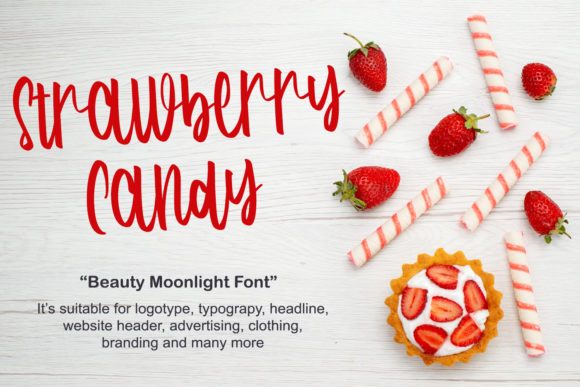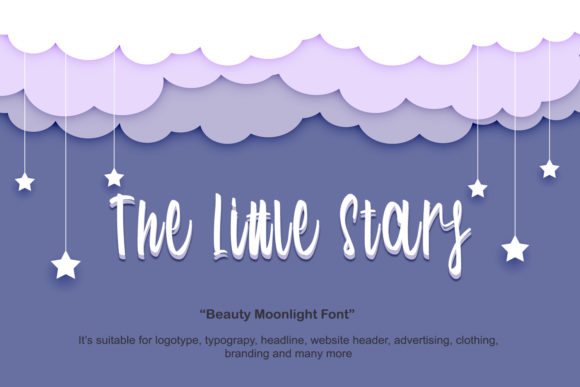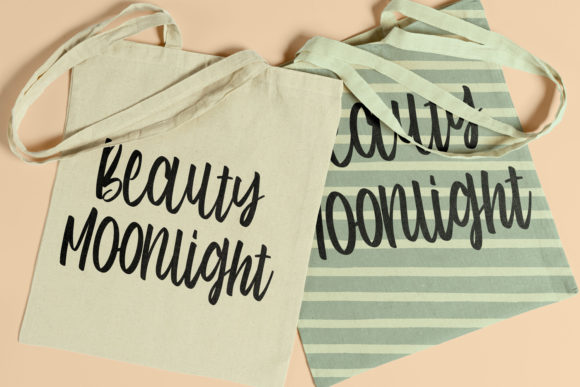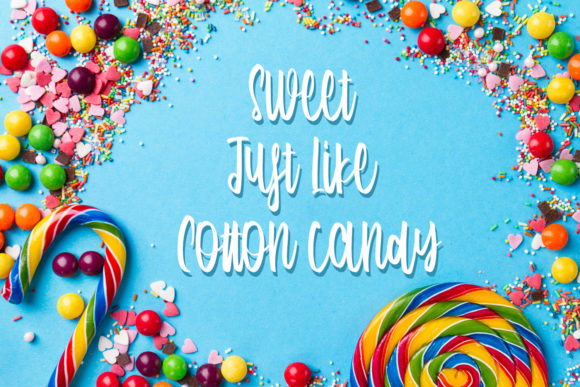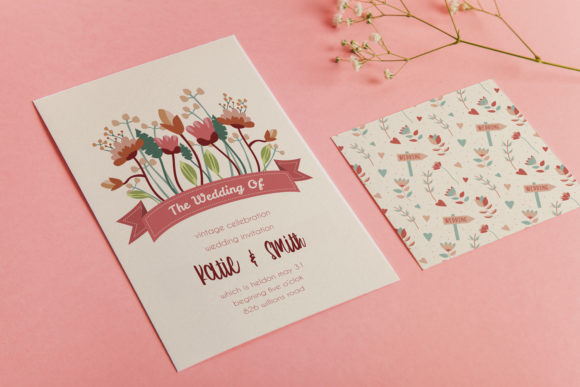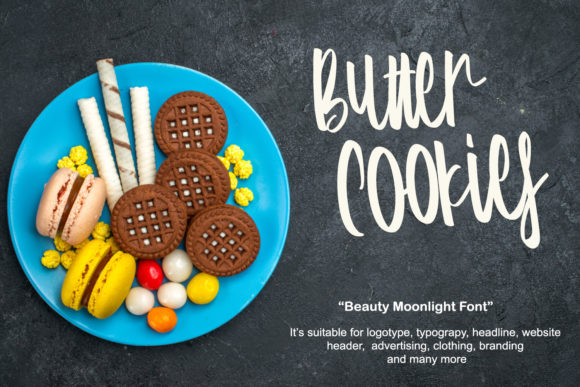
Introduction to Beauty Moonlight Font
Beauty Moonlight is an exquisite handwritten font, masterfully designed to become a true favorite.
Key Features of Beauty Moonlight Font
Why Choose Beauty Moonlight Font?
Beauty Moonlight Font offers exceptional quality and versatility, making it a valuable addition to your design toolkit. Whether you’re creating for personal projects or commercial use, Beauty Moonlight Font delivers professional results.